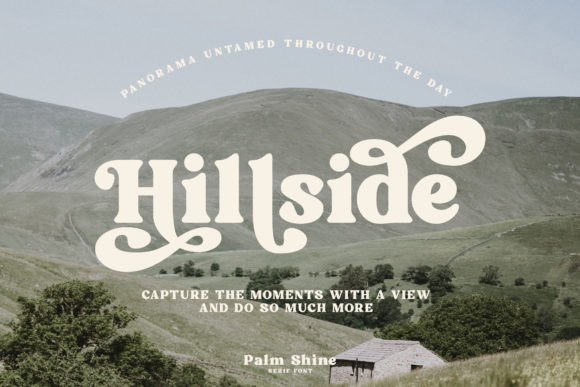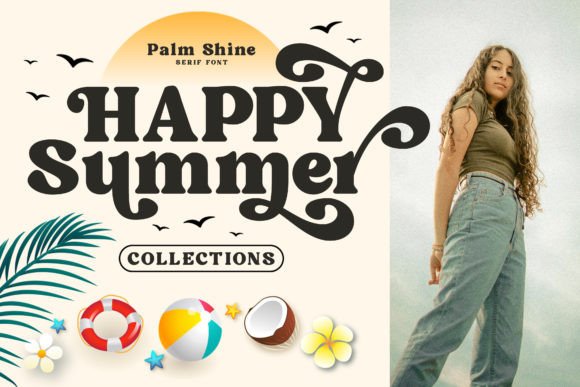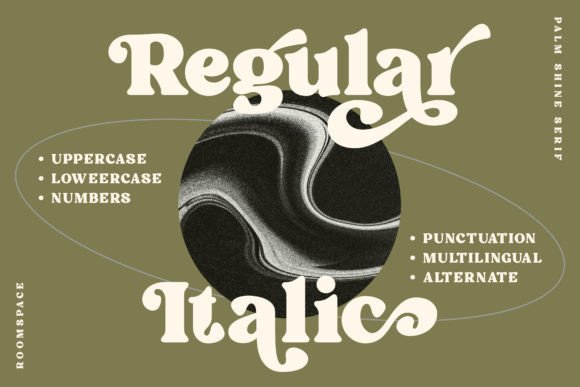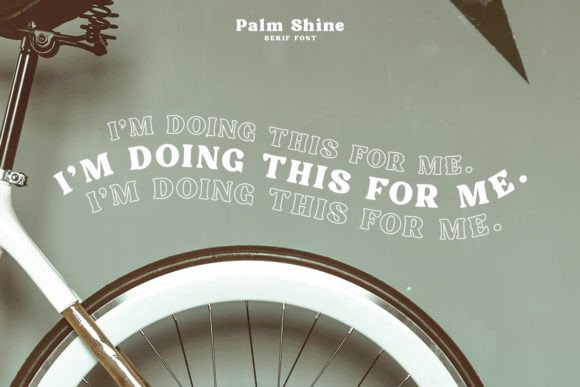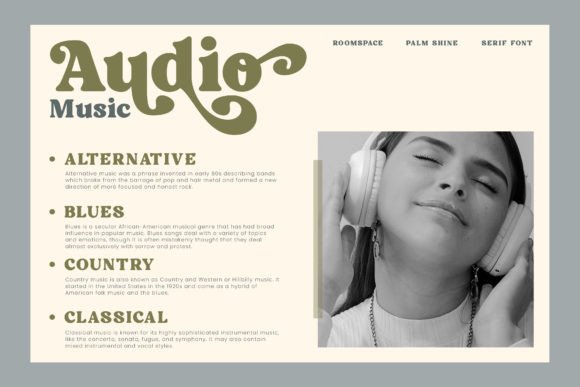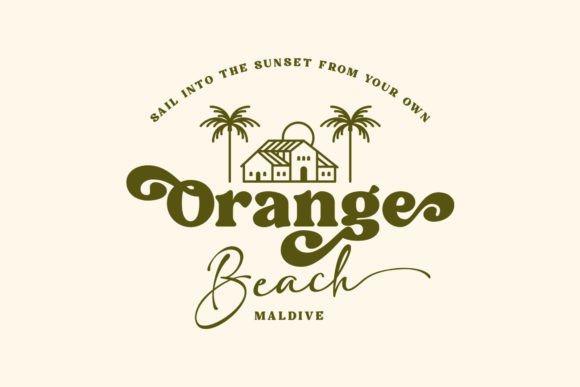
Introduction to Palm Shine Font
Palm Shine is a beautiful and versatile font with a retro serif design that can be used in many different ways.
Its elegant lines and modern look will make your designs stand out while maintaining a classic, timeless feel It’s also extremely versatile – perfect for logos, boho and groovy designs, and even silhouette art and more.
Key Features of Palm Shine Font